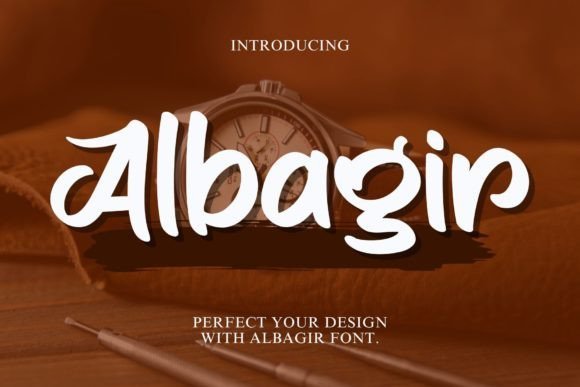
Where Creativity Meets Elegance: The Albagir Font
Have you ever stared at a blank canvas, trying to bring your idea to life, but struggling to find the perfect words to express it? You’re not alone. We’ve all been there, searching for that one font that captures the essence of our vision and brings it to life. That’s where Albagir Font comes in – a captivating display font that’s designed to elevate your visual communication and leave a lasting impression.
As a designer, you’re constantly on the lookout for fonts that not only look great but also convey your message effectively. Albagir Font checks both boxes, offering a unique blend of beauty and clarity that’s sure to make your designs stand out. With its artistically balanced structure and subtle versatility, this font is a refined choice for anyone seeking to add a touch of elegance and originality to their work.
Albagir Font Key Features
- Font Family: Albagir is a unique, hand-drawn font that offers a elegant and refined feel.
- Unique Characteristics: Albagir features a distinctive, flowing script style with intricate details and subtle flourishes, making it ideal for creative and artistic projects.
Albagir Font Review
Overall, I found the Albagir Font to be a decent addition to any design project. Here are some of its strengths and weaknesses.
- Beautiful calligraphy-inspired design: The Albagir Font has a unique and elegant look that makes it perfect for adding a touch of sophistication to your designs.
- High-quality rendering: The font renders well across different devices and screen sizes, ensuring that your design will look great on any platform.
- Extensive language support: Albagir Font supports a wide range of languages, making it a versatile choice for designers working on international projects.
- Limited font weights and styles: Albagir Font only comes in a few font weights and styles, which may limit its versatility in certain design scenarios.
- Not ideal for small text: The font’s elegant design can make it difficult to read in smaller sizes, which may not be suitable for body text or other small-scale applications.
- Some kerning issues: I noticed a few instances of uneven kerning, which can be distracting and affect the overall quality of your design.
The Albagir Font is a solid choice for designers looking to add a touch of elegance to their projects. While it has some limitations, its unique design and high-quality rendering make it a valuable addition to any design library.
Tip: Use Albagir Font for headings and titles to create a visually appealing contrast with the body text.
Tip: Use Albagir Font to create a unique and eye-catching typography style in your designs.
Tip: Use Albagir Font to add a touch of elegance and sophistication to your presentations and documents.
Albagir Font is suitable for a variety of design projects, including:
- Editorial and magazine design
Remember to use Albagir Font in a way that complements the overall design and message of your project.